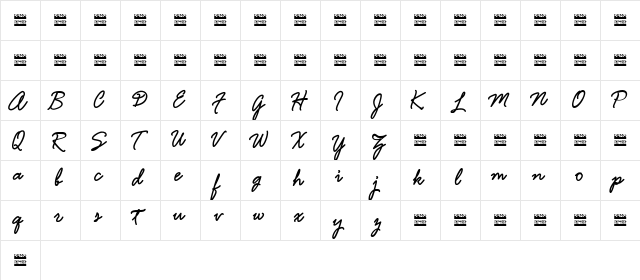
Hamline Demo Regular
Design Context for Hamline Demo Typeface
Hamline Demo is a composed and adaptable typeface that performs quietly and consistently across a wide range of design contexts.